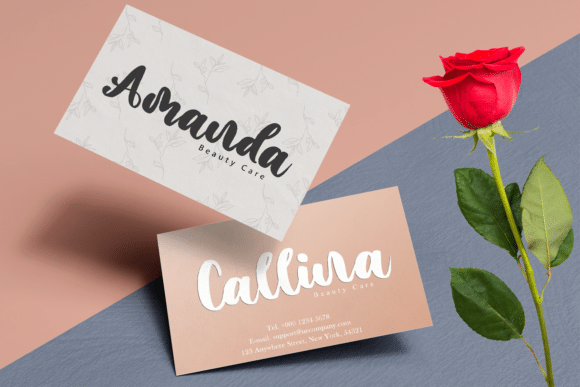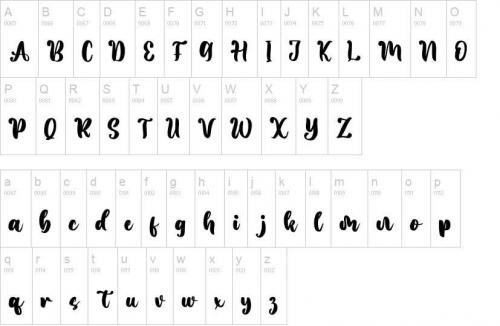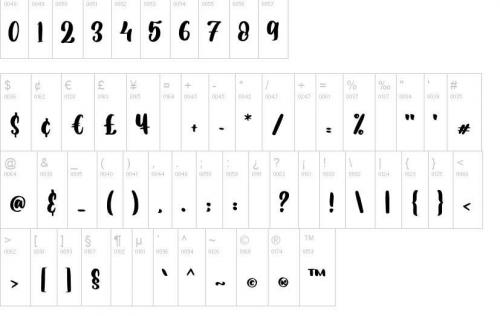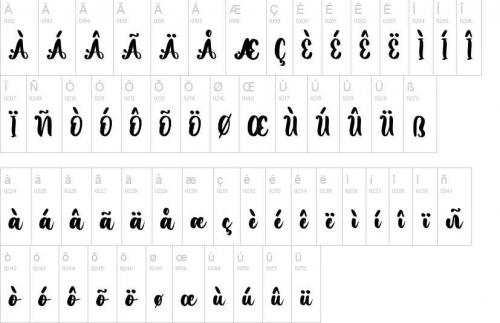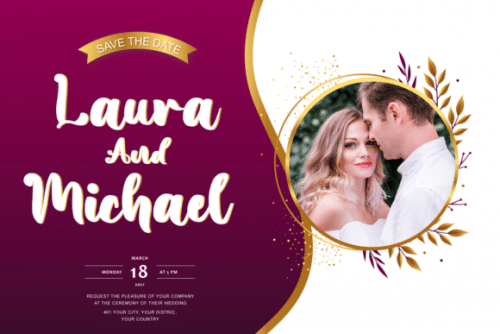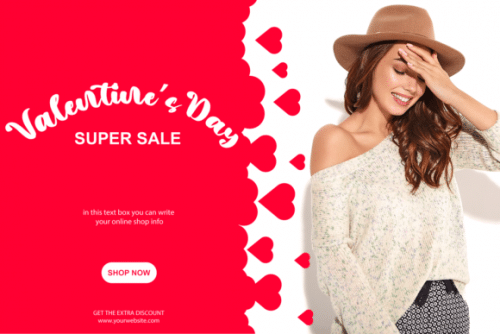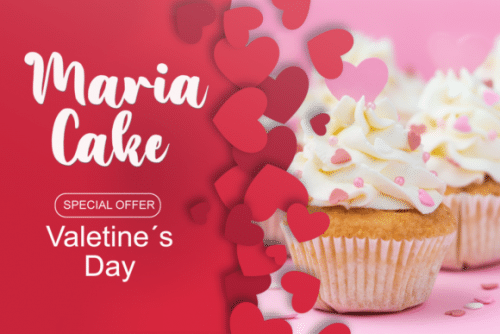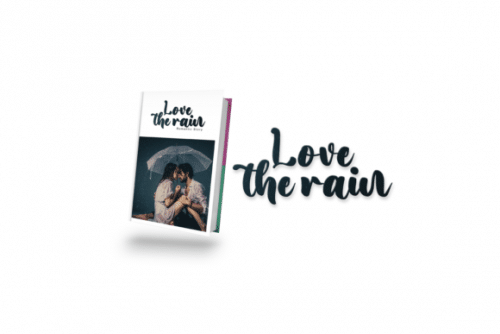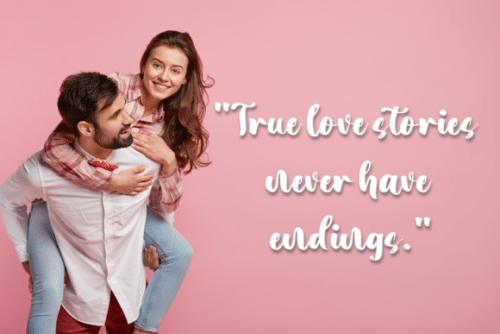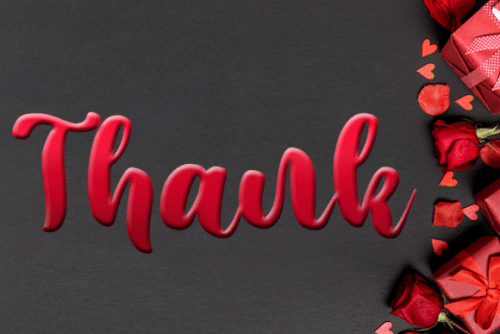
Romantic Valentine is a stylish and incredibly elegant script font. It looks stunning on wedding invitations, thank you cards, quotes, greeting cards, logos, business cards and every other design which needs a handwritten touch.
This font is PUA encoded which means you can access all of the outstanding glyphs and swashes with ease!